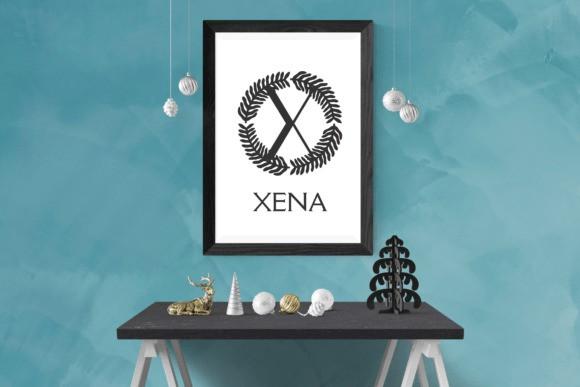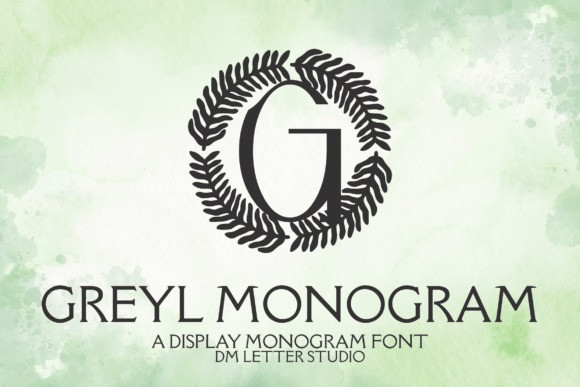
Greyl Monogram Font
Greyl Monogram Font turns simple initials into clean, modern emblems with a calm, upscale feel. The strokes are smooth and balanced, so letters stay clear at any size. Because counters remain open, tiny tags print crisp while large signage looks sharp and refined. Use it for boutique logos, wedding suites, keepsake gifts, wax seals, stationery, and premium packaging. As a result, your designs feel polished and professional without needing extra decoration.
First, setup is fast in Canva, Photoshop, and Illustrator. Next, the clean outlines cut and print beautifully for foil, emboss, deboss, engraving, laser, vinyl, DTF, and sublimation. Then layouts build quickly because spacing is steady and predictable. Moreover, Greyl pairs perfectly with a modern serif or a clean sans, so you can build cohesive collections faster. Therefore, your shop can roll out personalized listings and premium brand sets with confidence.